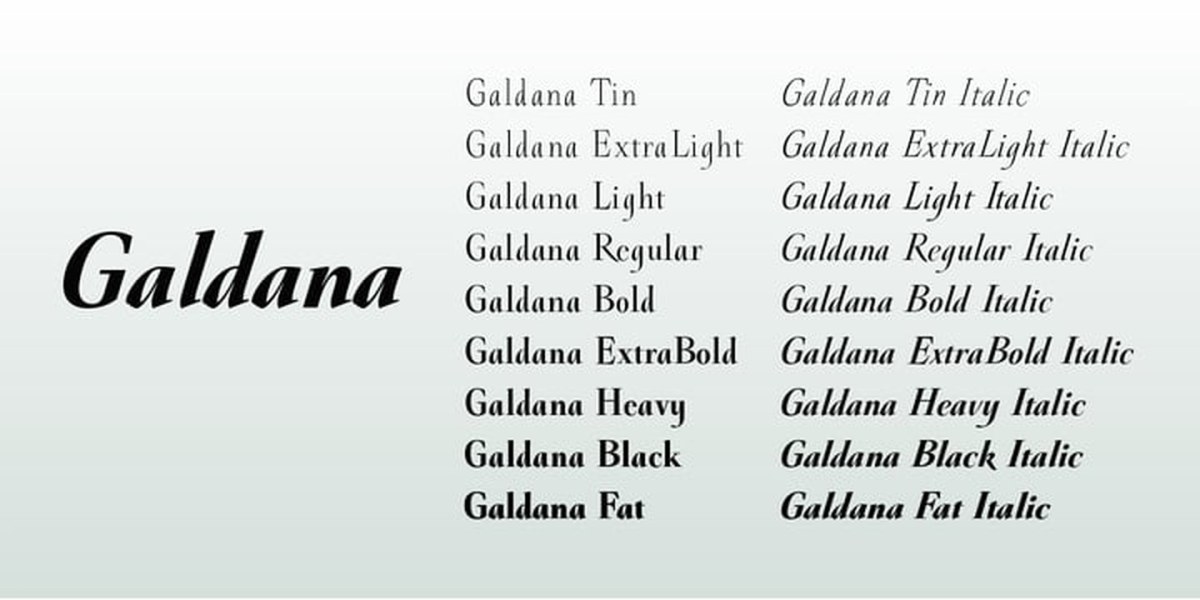
Galdana Font Family
Galdana font family is a Roman serifs typeface, whose most relevant characteristic is the slanted angle of its true italic, at seventeen degrees. Its design was inspired by one of the most prominent American calligraphers of the last century, the book designer Oscar Ogg. Galdana contains 18 styles: starting from thin to ending in a fat typeface. This family is completed with multilingual support and a set of OpenType features such as stylistic alternates, swashes, and ligatures.
Galdana Font Family is a Serif Fonts font that brings a professional and versatile look to your projects. Galdana font family is a Roman serifs typeface, whose most relevant characteristic is the slanted angle of its true italic, at seventeen degrees.